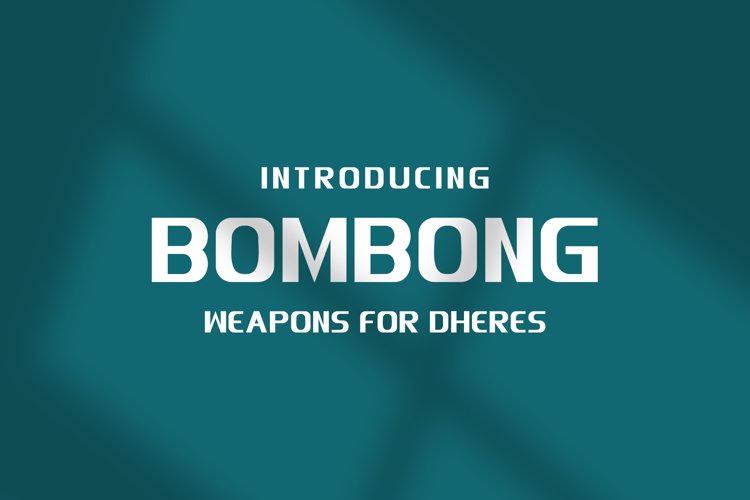
Bombong
Bombong Font
Bombong font is a simple bold inspired concept and a sophisticated advanced font, suitable for a title, poster and advertising brochure etc.